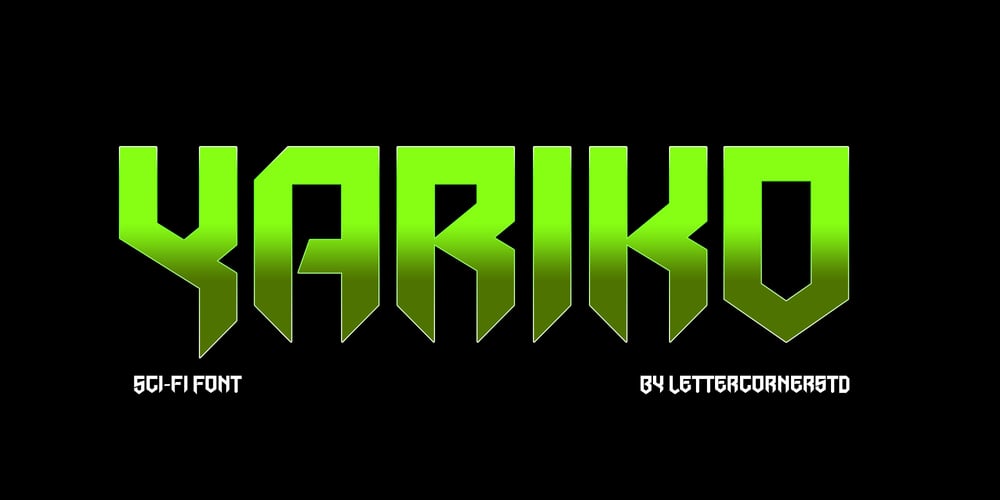
Yariko Font Family was designed by Muhammad Afif Ersya and published by Mevstory Studio. Yariko contains 1 styles and family package options. Yariko is a typeface that has a modern, bold, clean, simple, and futuristic look. The basic shape of this typeface is like two rectangles arranged side by side with simple, unique joints and accents. Perfect for logo, brand and apparel projects.Airforced Typeface Include : Letters Alternates Numeral Multilingual Support